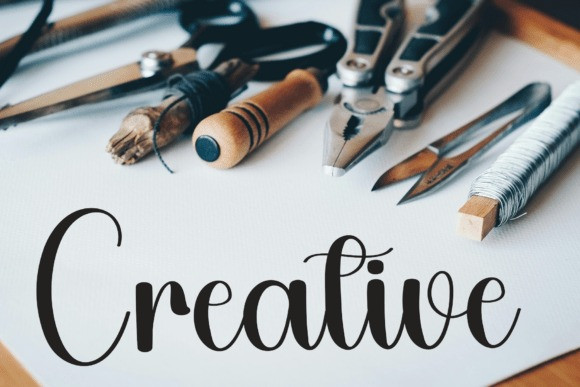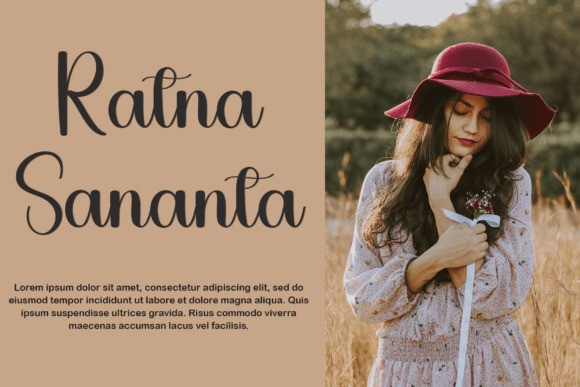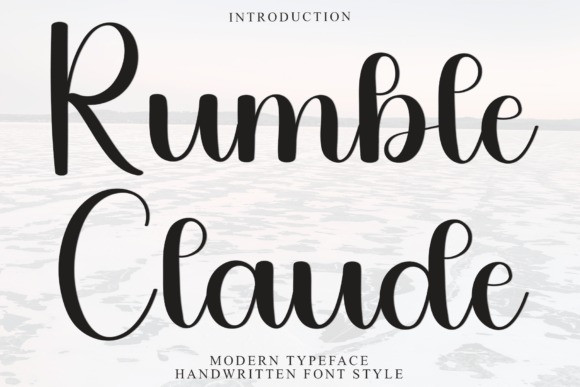
Rumble Claude Font
Rumble Claude Font is a lovely and timeless handwritten font. It is the best choice for creating eye catching logos, branding and quotes. Every letter has a unique and beautiful touch, which will make your design come alive!